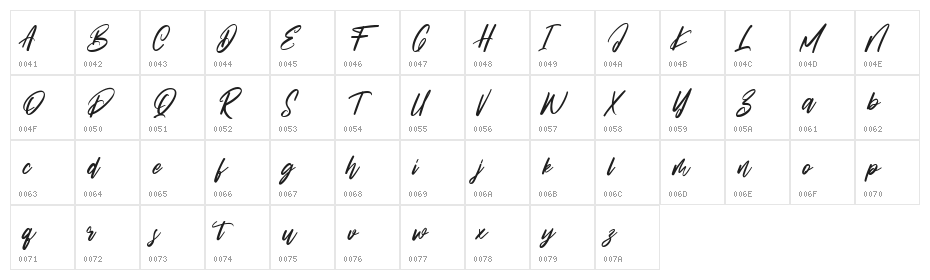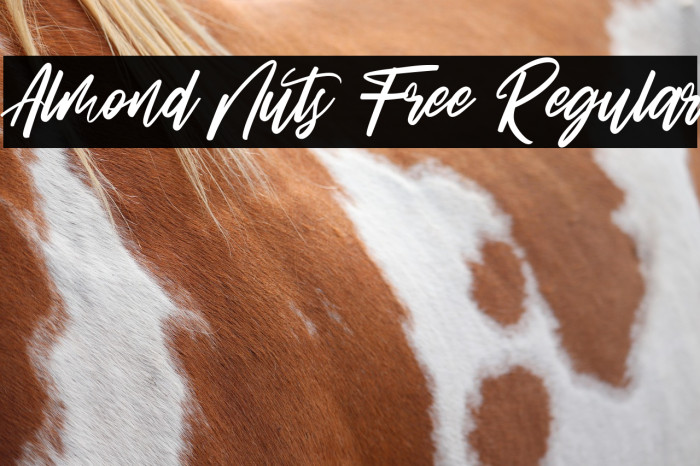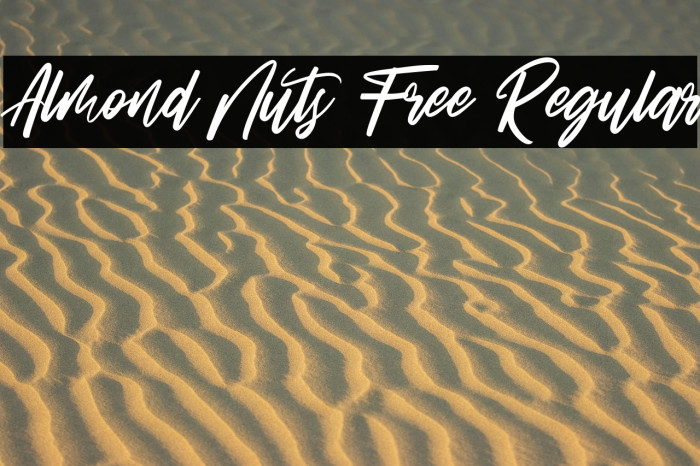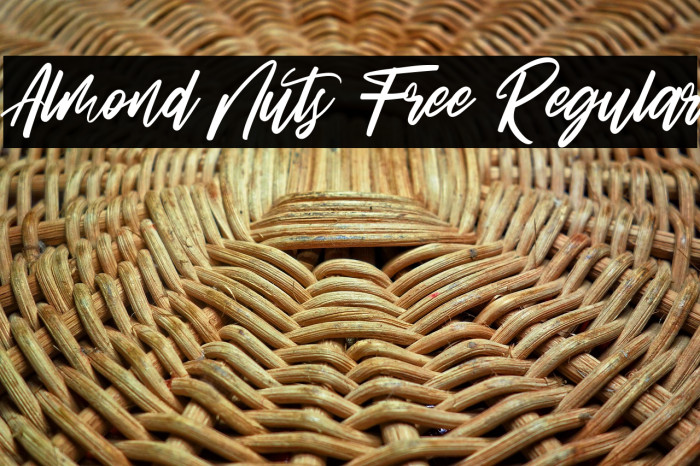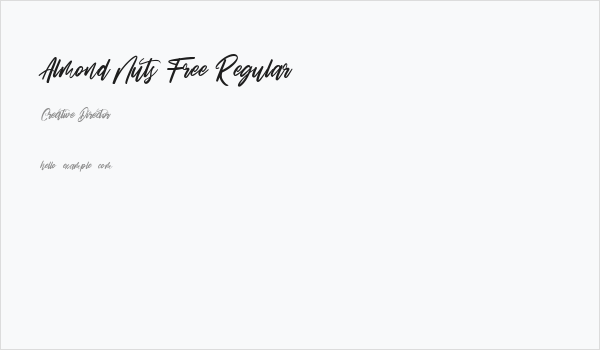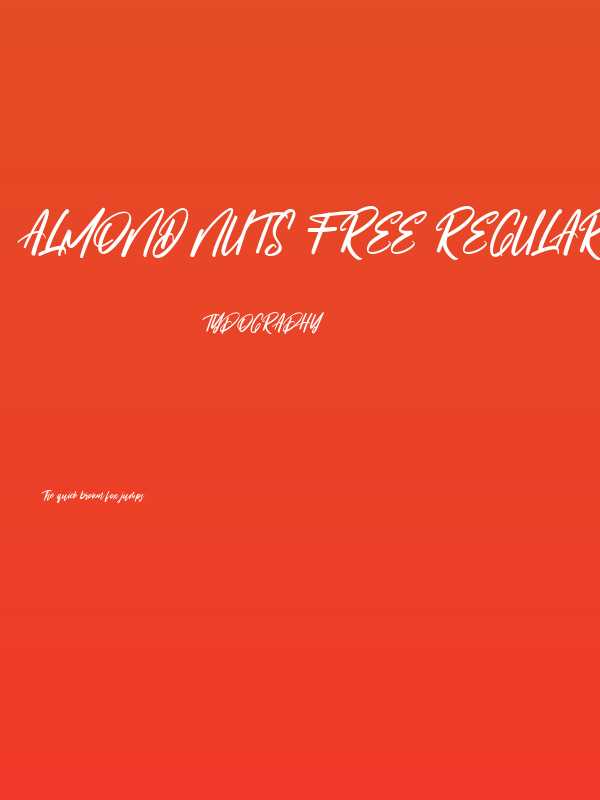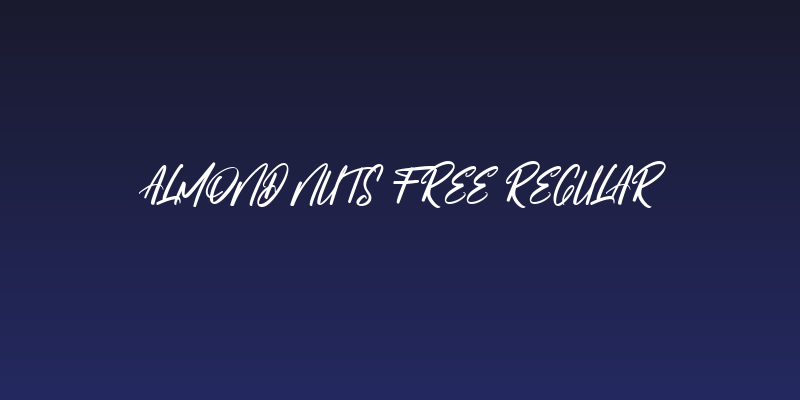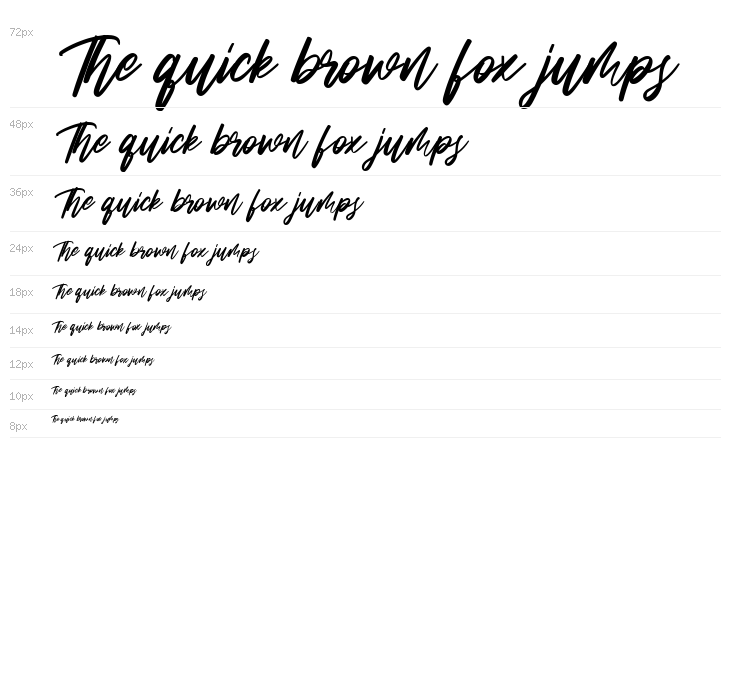
Almond Nuts Free Regular Font
Almond Nuts Free Regular Description
This font exudes a lively and dynamic script style, characterized by its fluid and cursive letterforms. The strokes are bold and confident, with a consistent thickness that adds to its legibility. The uppercase letters are particularly expressive, with sweeping curves and loops that give a sense of motion and elegance. The lowercase letters maintain a cohesive flow, making it suitable for both formal and informal contexts. The font's overall appearance is modern yet retains a touch of classic calligraphy, making it versatile for various design needs.
| Proposed Projects | Ideal for wedding invitations, branding, logo design, and social media graphics. |